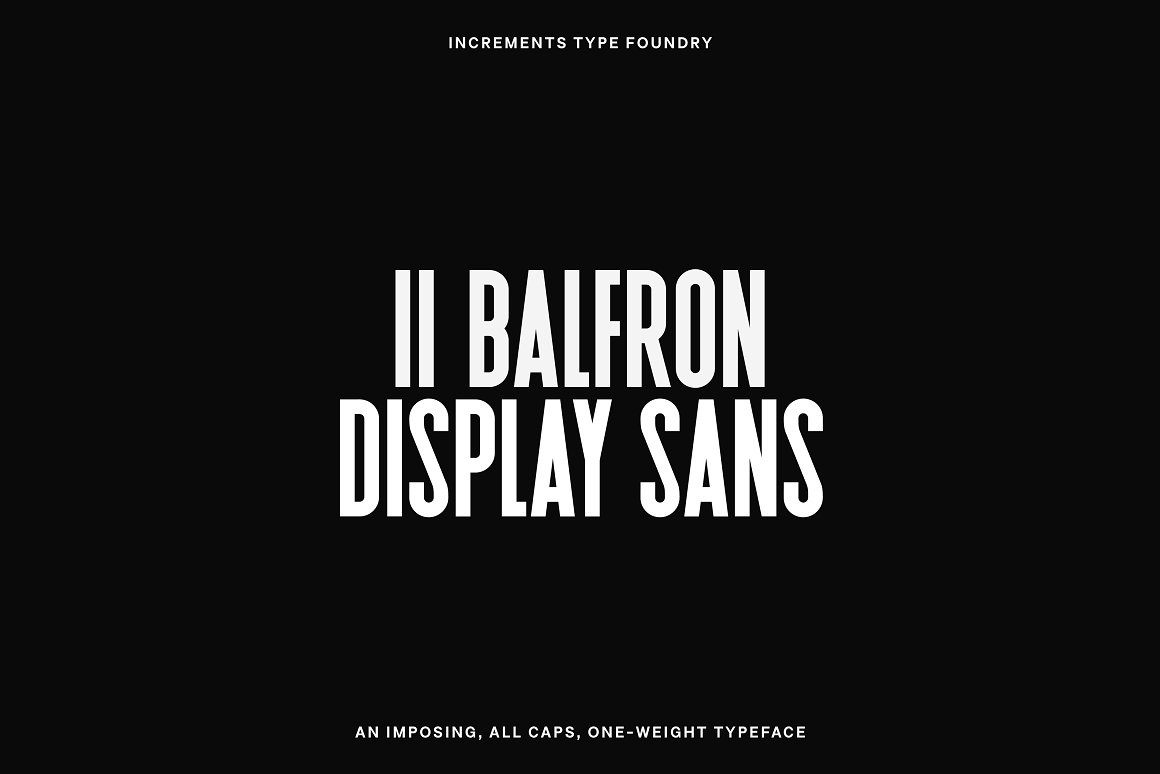
II Balfron Display Sans Font Family
Set within a rigid structural grid, the unexpected angles embody the brutal principles of the original concrete profile. Much like Goldfinger's utopian housing ideals, the font is best viewed at large scale.